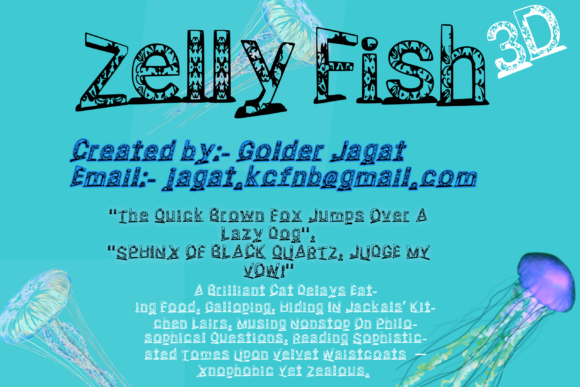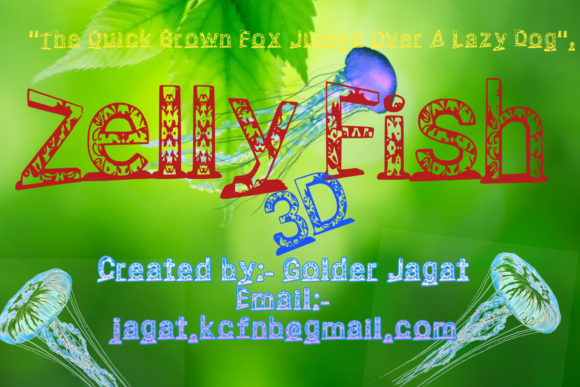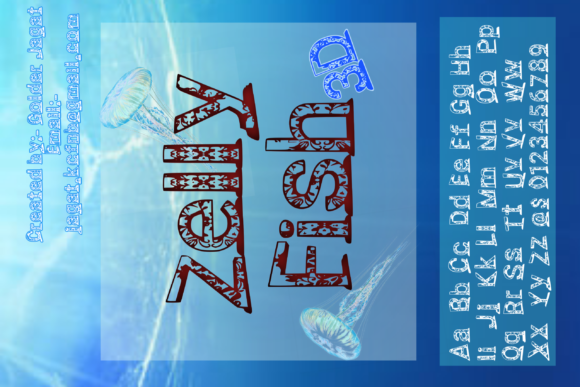
Jelly Fish
About Jelly Fish Font
Jelly Fish is a fun, daring and trendy decorative font. It can be used for various designs, such as posters, magazine covers, headlines and so much more.